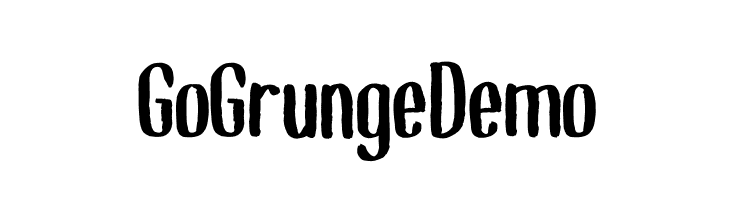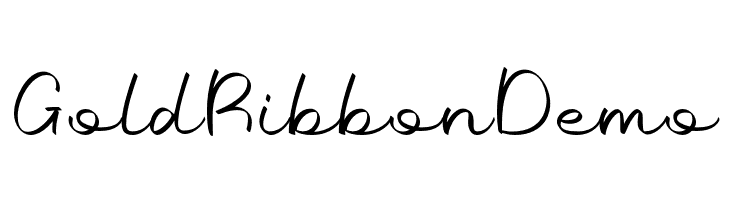
A bold, hand-drawn font with a grunge aesthetic and irregular edges.
A modern font with clean lines and a touch of vintage elegance.
A bold, brush-style font with a hand-painted, dynamic appearance.
A bold, geometric sans-serif font with a modern and assertive style.
A bold, cursive script font with elegant, flowing strokes.
An elegant outline font with a modern and sophisticated style.
A rough, textured font with a handcrafted, vintage feel.
A bold, brush-style font with dynamic and expressive strokes.
A bold, expressive handwritten font with playful strokes.
A bold, brushstroke-style font with dynamic and artistic flair.